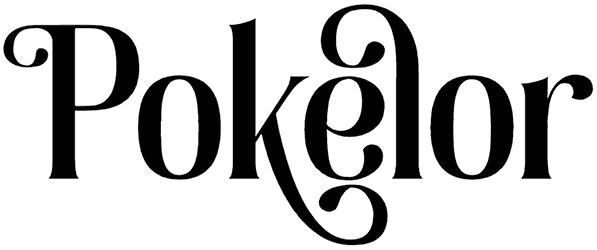
Pokelor Font
You’re sensing the magic around Pokelor, too, right? Good! Then it’s not just us. You can’t put your finger on its source, yet you know it’s there. Or else it would never come off so spellbinding.
Just let our classic font here work its charm, and after that, every time you want to take someone’s fancy with your nail salon poster, hair stylist business card, home décor logo, and other high-end business designs, you’ll instantly know what your artwork is missing.